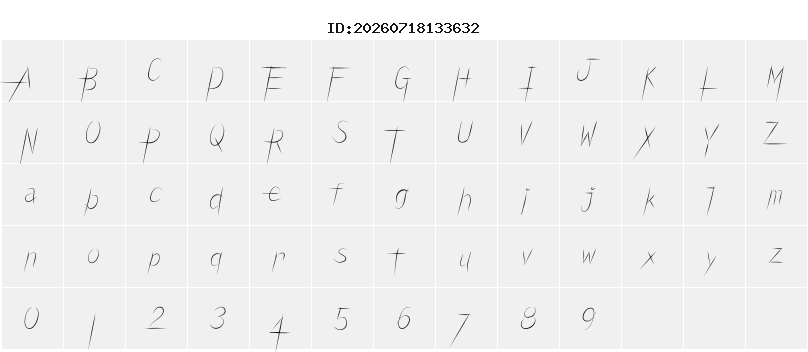
Carbon Blade Preview
About Carbon Blade.ttf
Carbon Blade.ttf is a modern, elegant sans-serif font designed for ultimate readability and visual harmony. Perfect for branding, headlines, web design, and print materials.